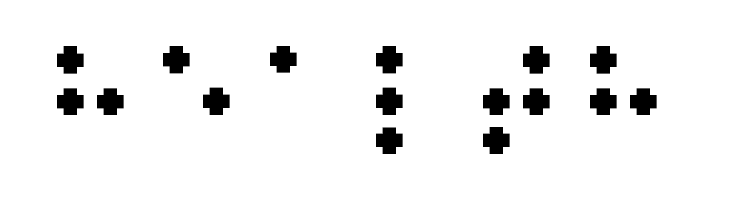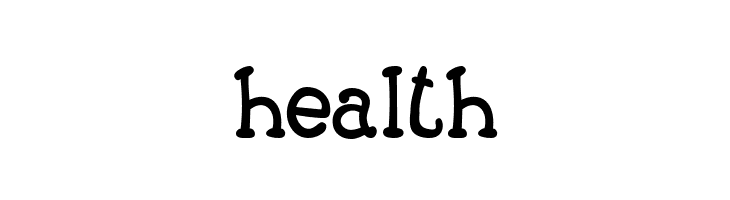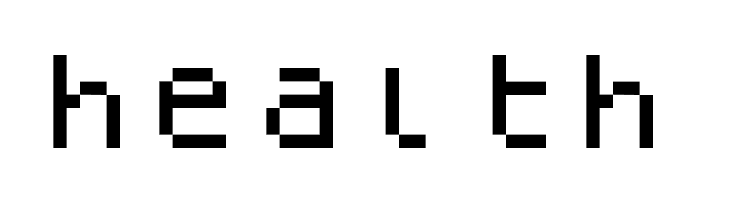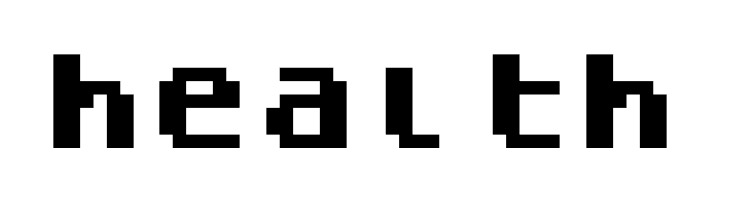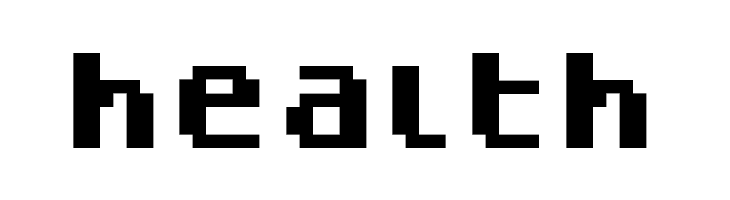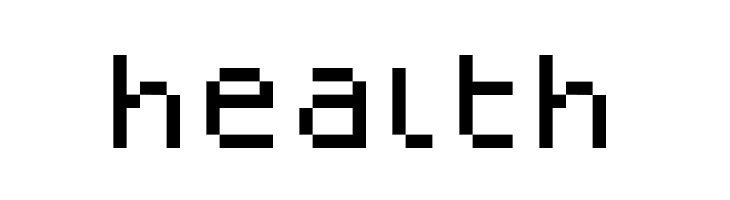
A pixelated Braille-inspired font with a minimalist and digital aesthetic.
A playful, handwritten font with rounded, smooth strokes and a casual feel.
A bold, pixelated font with a retro, digital aesthetic.
A pixelated, retro-style font with a digital, geometric design.
A pixelated, monospaced font with a retro digital aesthetic.
A bold, pixelated font with a retro digital style.
A pixelated, retro font with a blocky, geometric style.
A bold, pixelated font with a retro, digital aesthetic.
A pixelated, monospaced font with a retro digital style.